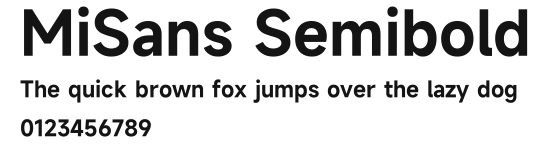
• Font Name: MiSans Semibold
• Full Font Name: MiSans Semibold
• Manufacturer: Hanyi Fonts
About MiSans Semibold.ttf
MiSans Semibold.ttf is a modern, elegant sans-serif font designed for ultimate readability and visual harmony. Perfect for branding, headlines, web design, and print materials.